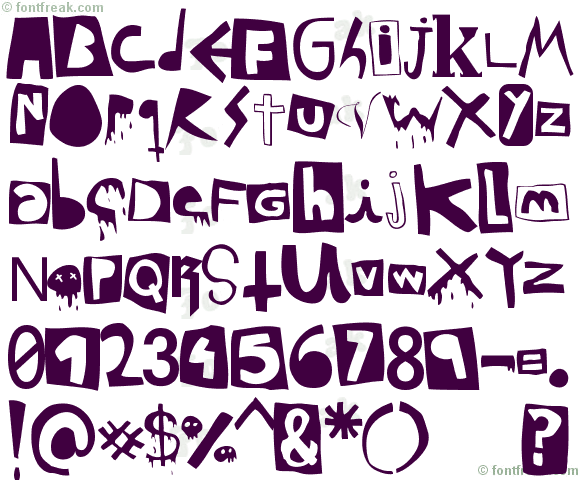
DaPunk
DaPunk is a striking display typeface created by the talented woodcutter Manero in 2013. This font falls into the decorative category, characterized by its bold and unconventional style that captures attention. The letters feature a unique combination of sharp angles and smooth curves, resulting in a visually engaging appearance. The stroke weight is consistent, providing a sense of uniformity, while the spacing between characters is carefully crafted to enhance readability, even at larger sizes. The font’s playful elements and intriguing forms make it perfect for creative projects that require a distinctive touch.
The versatility of the DaPunk font makes it suitable for a wide range of applications. It works exceptionally well for movie posters, where its eye-catching design can draw in an audience. Additionally, it is an excellent choice for branding materials, such as logos and business cards for companies looking to convey a modern and edgy vibe. The font is also ideal for event promotions, including music festivals and art shows, where a bold statement is essential. Furthermore, it can be used effectively in social media graphics, helping content creators to stand out in crowded feeds.
What sets the DaPunk font apart is its ability to blend artistic flair with practicality. It embodies a sense of individuality while remaining functional, making it an essential addition to any designer's toolkit. For those seeking a distinctive typeface, the DaPunk font free download offers a fantastic opportunity to enhance creative endeavors.